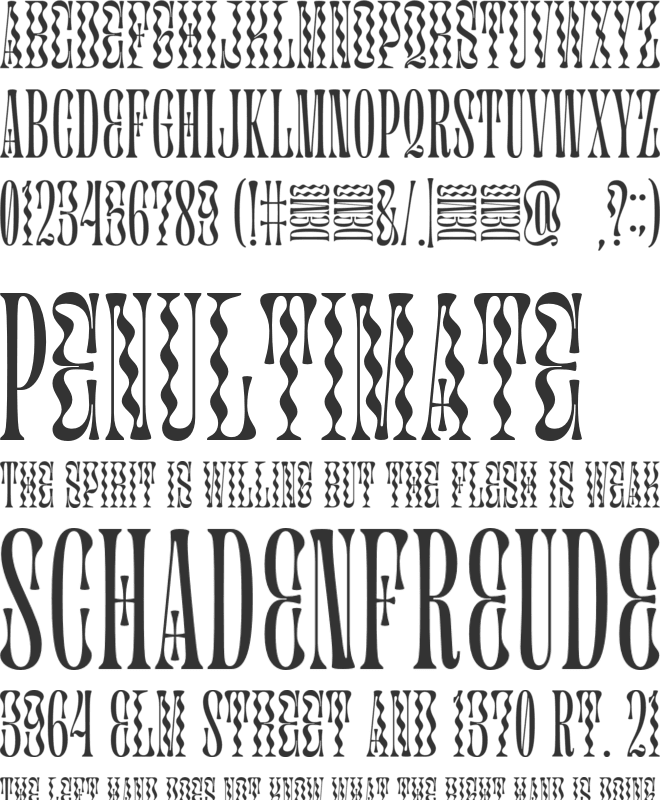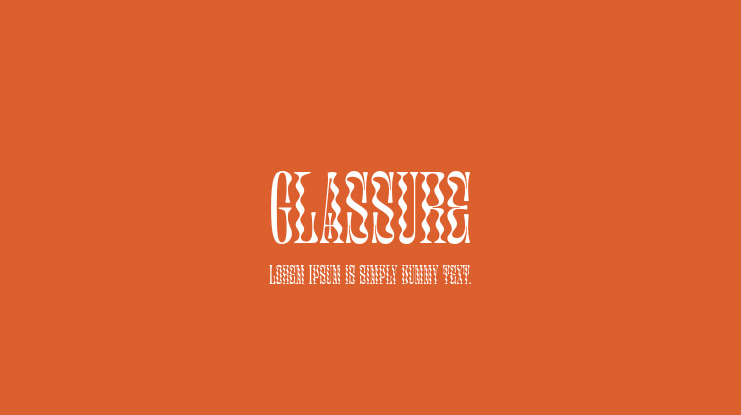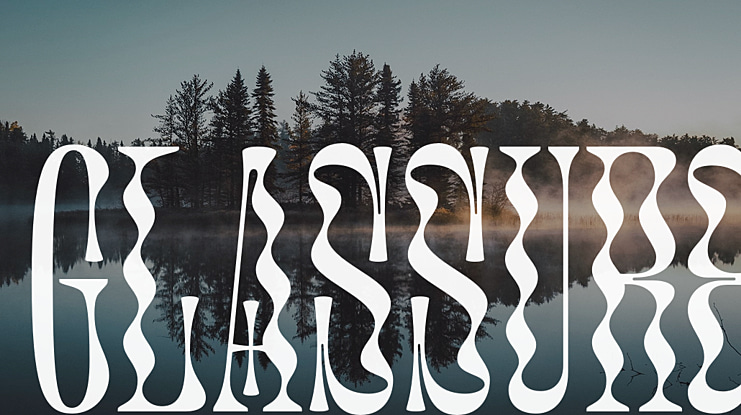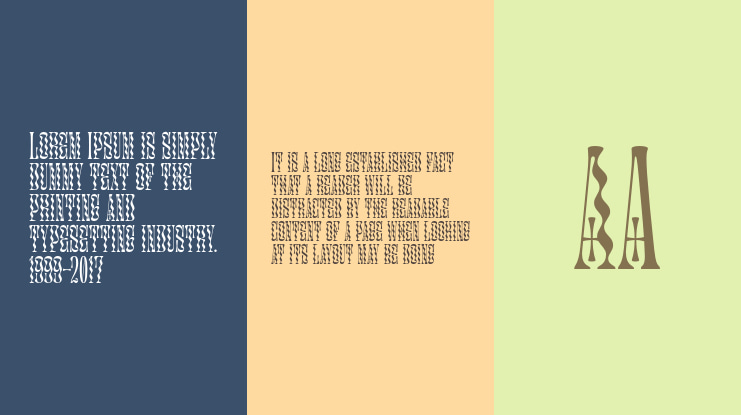
Glassure Font
Glassure is an experimental typeface that is inspired by every pull and curl in the process of making glass sculptures, weird yet beautiful marble pattern, and a little touch of art nouveau and vintage style. Combine the uppercases, lowercases and other feature to get the look that you want. There is a unique feature in this typeface that allows you to make two-letters block just by selecting an even number of letters and activating the 'titling alternates' in the software you are using.